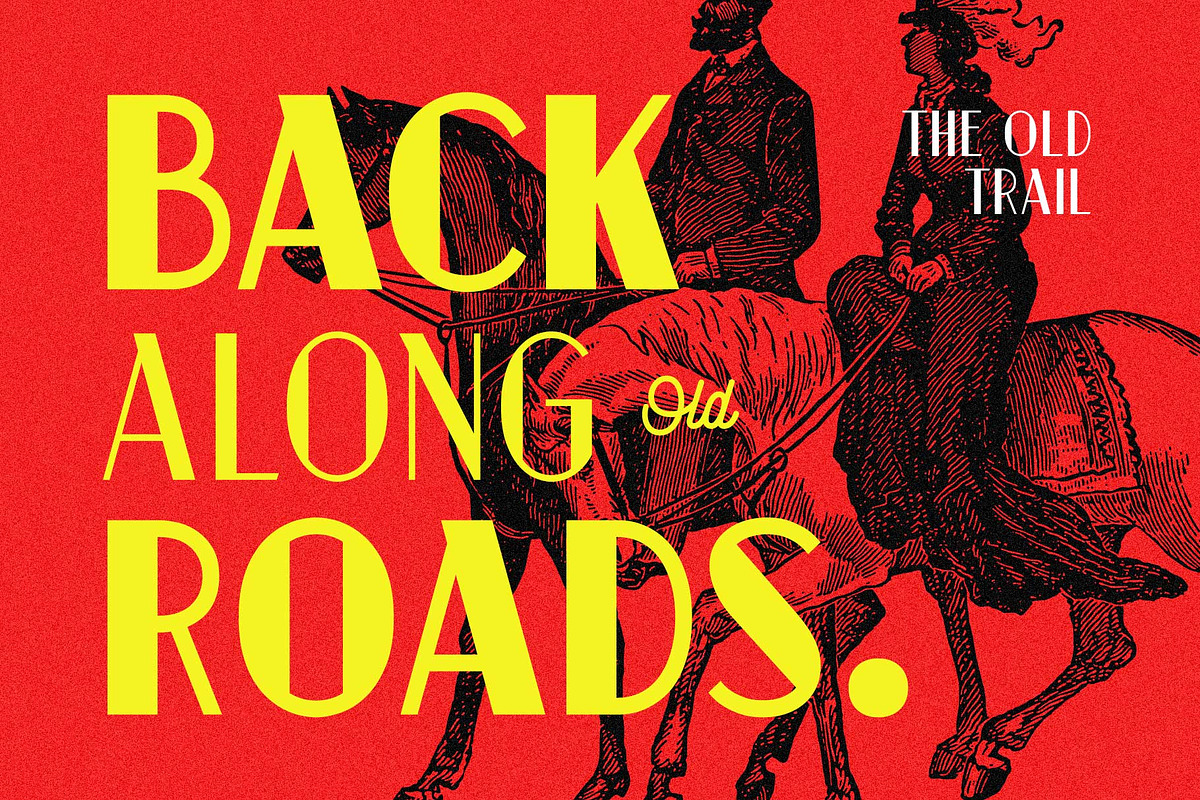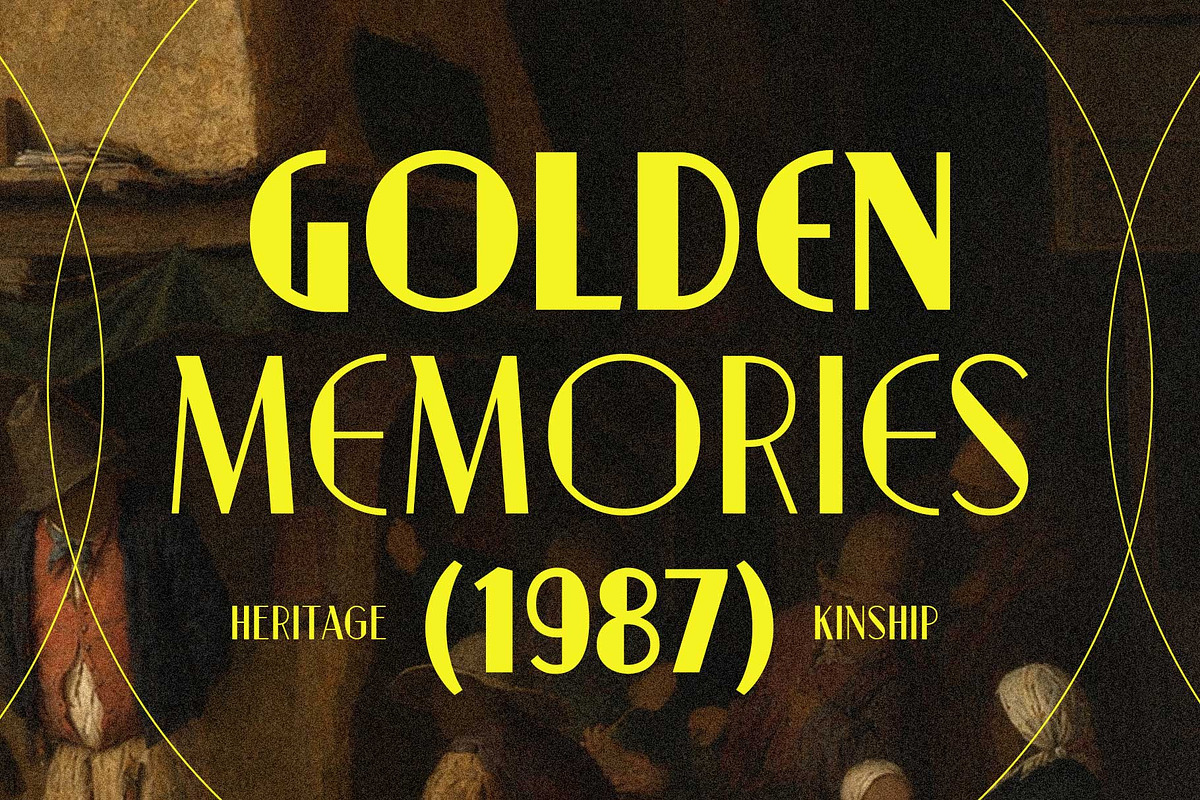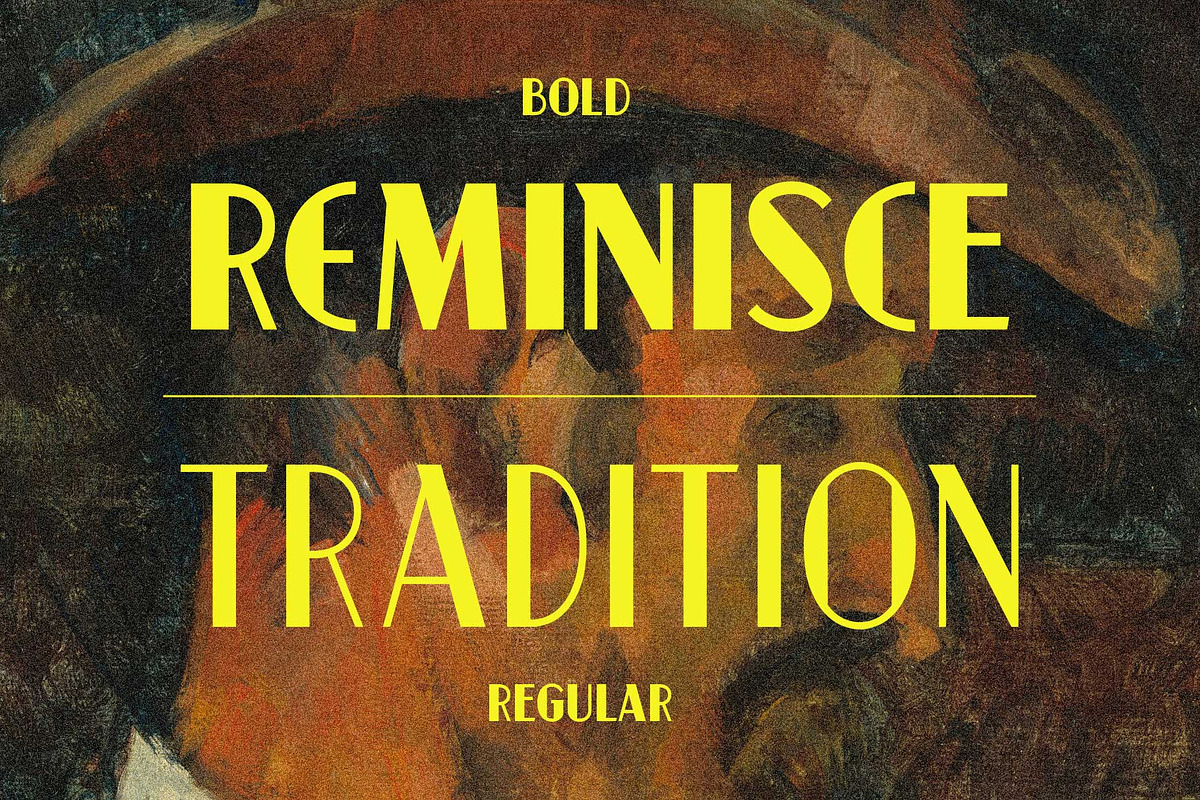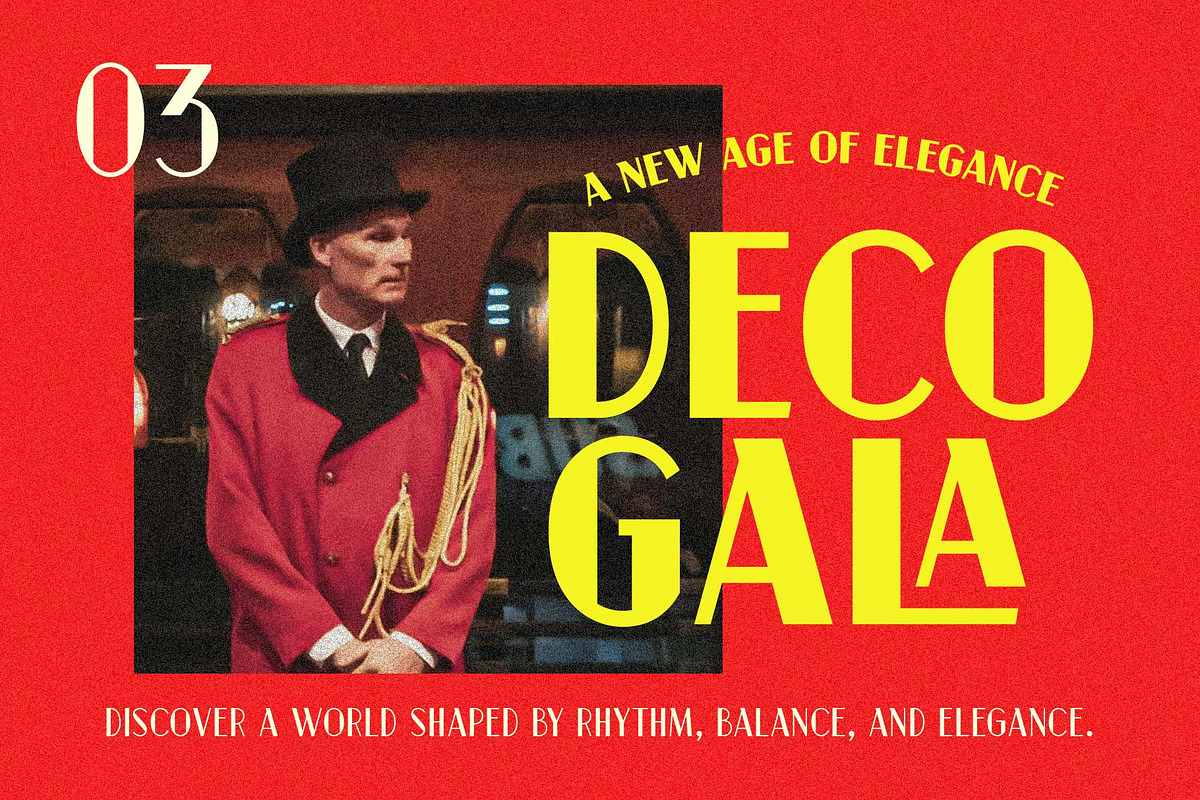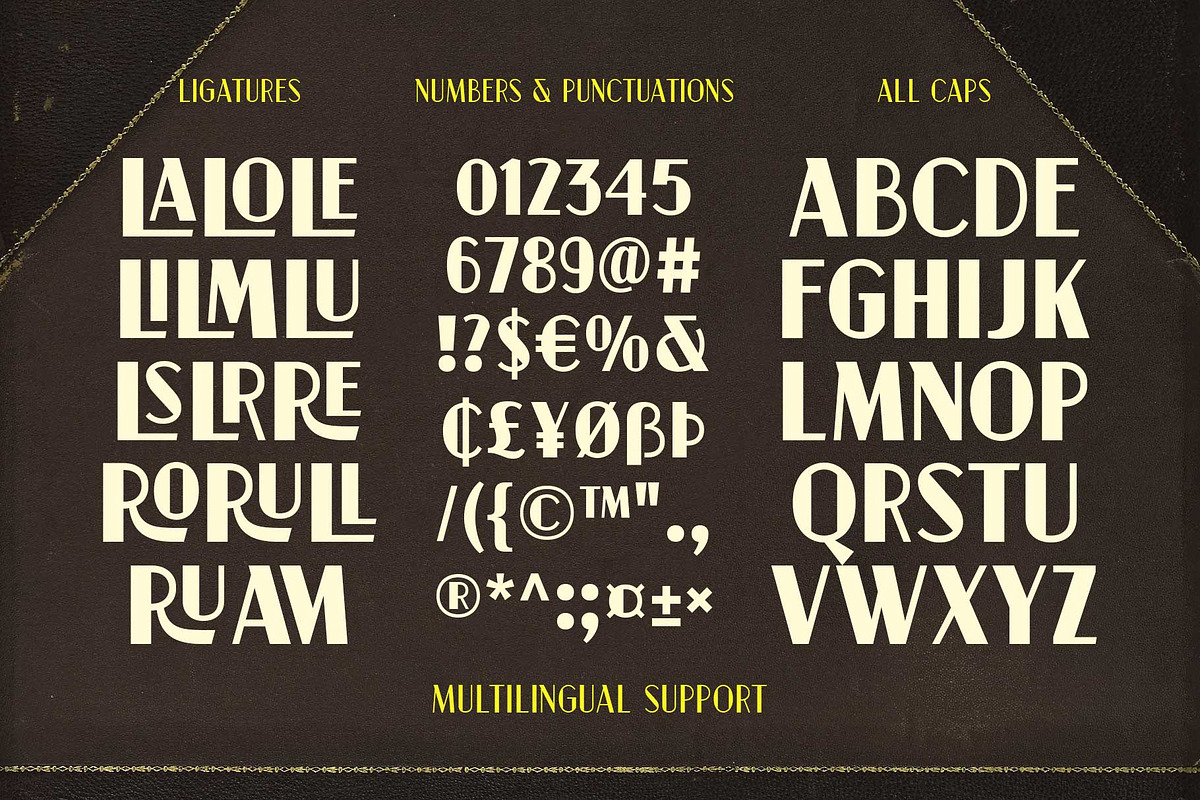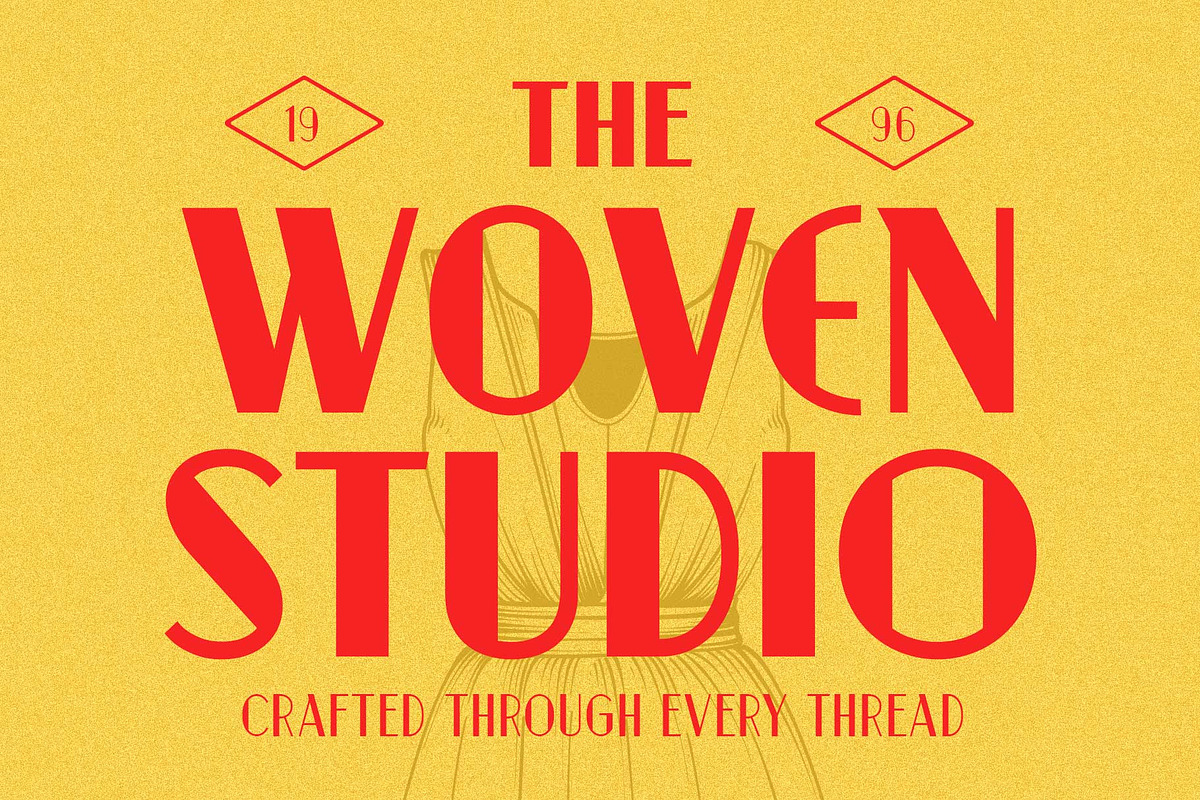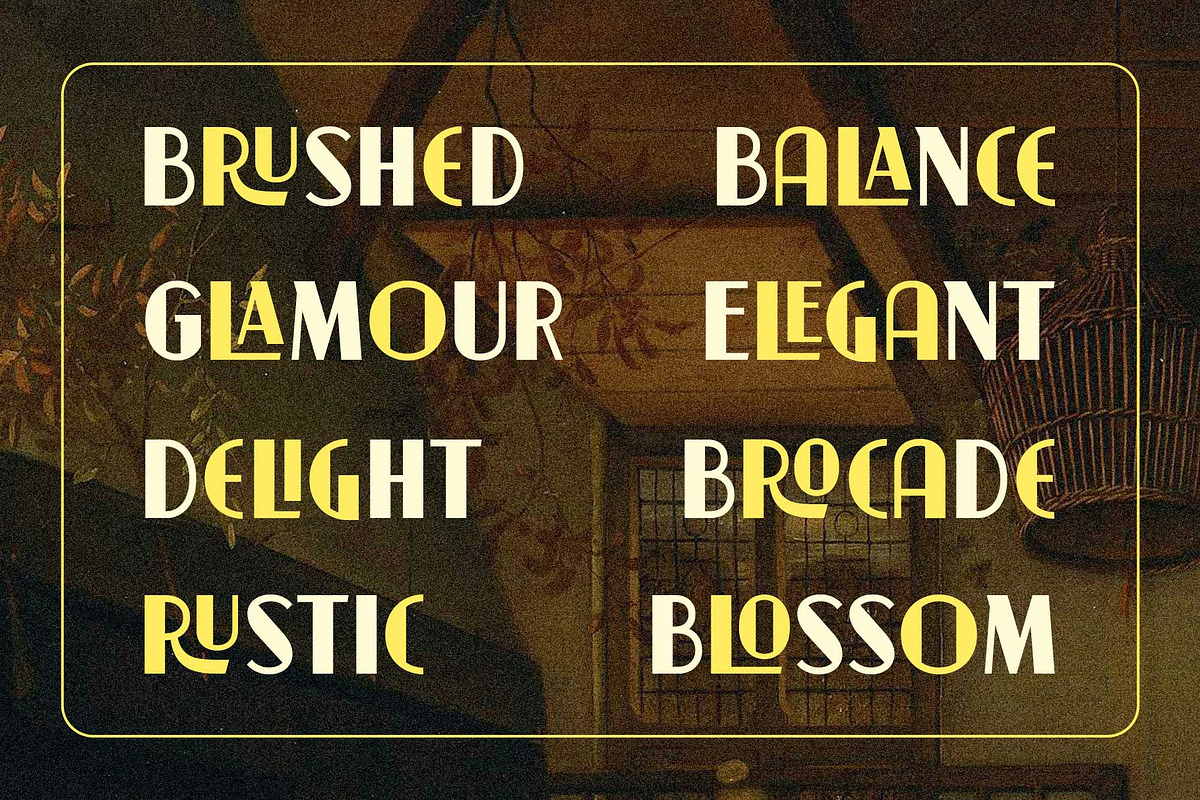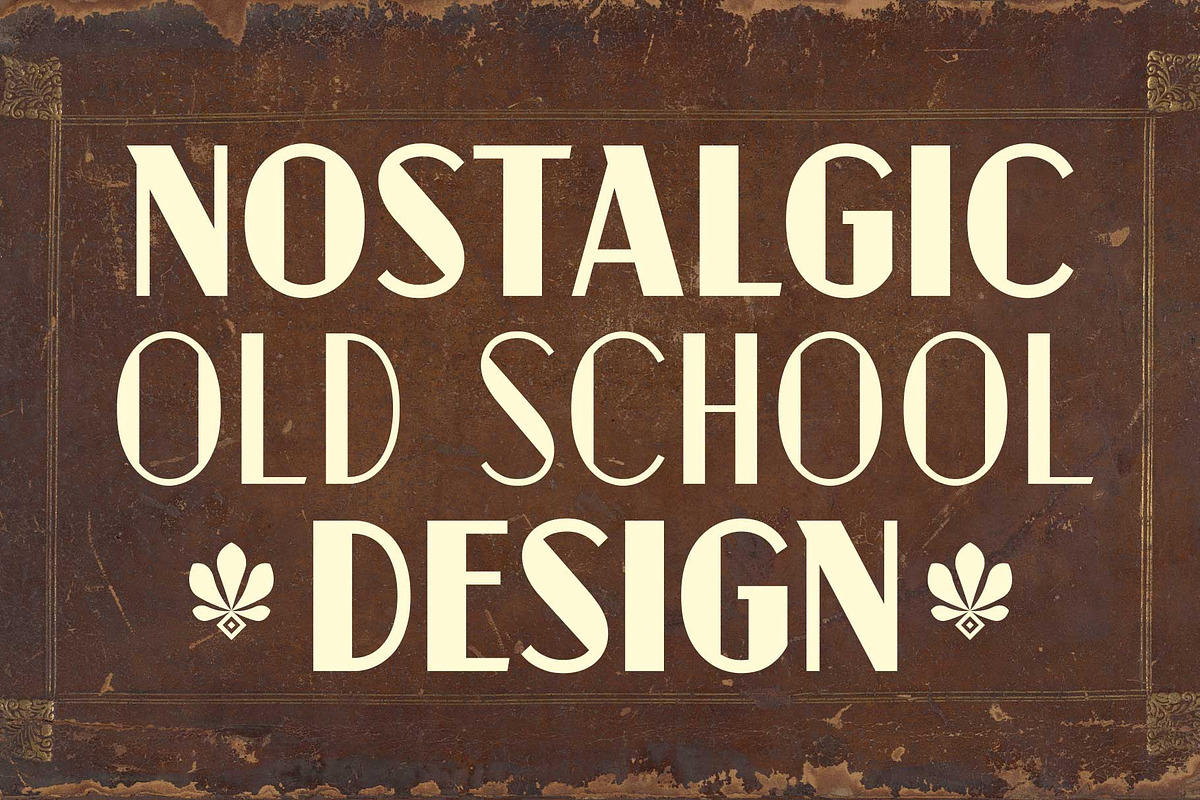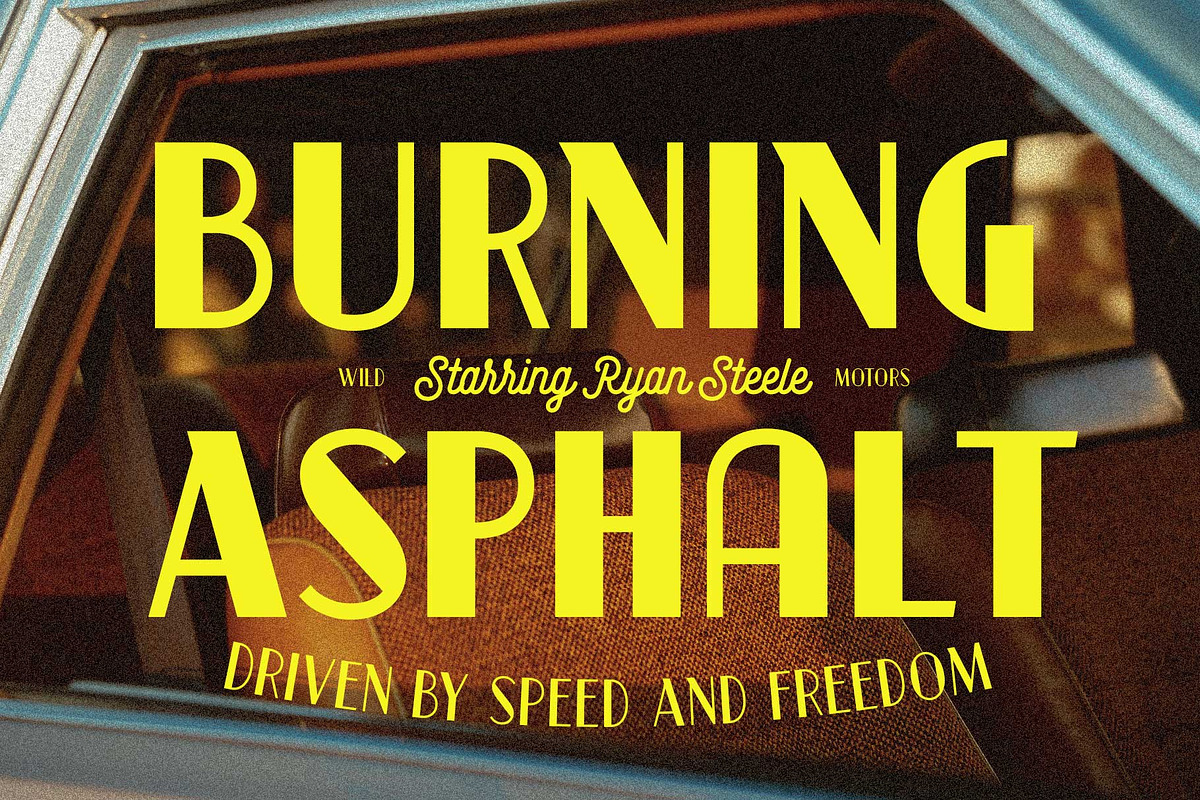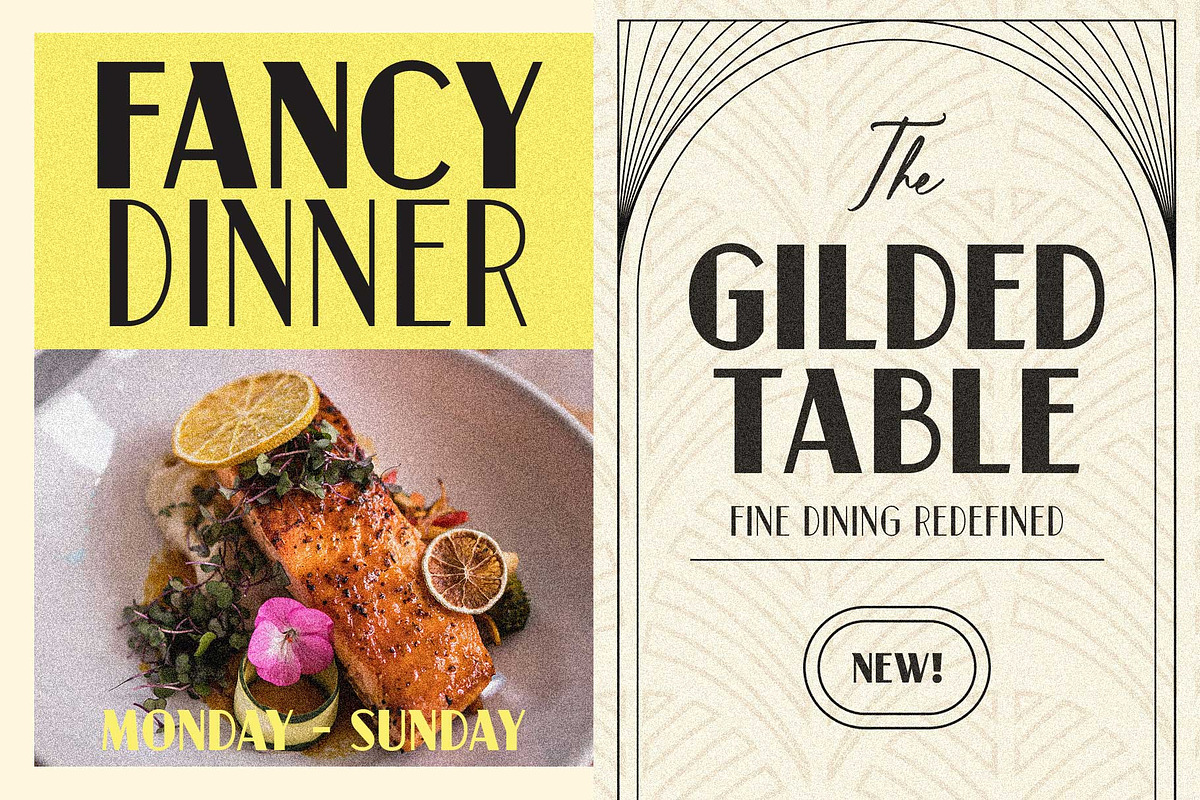
Neuford - Vintage Display
Neuford is a vintage display typeface inspired by the golden age of printed posters, classic advertisements, and timeless editorial lettering. With its distinctive geometric forms, graceful contrasts, and carefully crafted details, Neuford brings the charm of another era into contemporary design. Available in Regular and Bold, the family moves effortlessly between refined elegance and bold, commanding headlines.
Made for posters, menus, packaging, editorial covers, branding, signage, fashion, and nostalgic compositions, Neuford carries the character of old-school typography with a fresh sense of style. Ligatures, distinctive alternate forms, multilingual support, and a complete set of numbers and punctuation give you the freedom to create lettering that feels established, elegant, and wonderfully nostalgic.
Regular & Bold weight
Lowercase
Numbers & symbols
Stylistic alternates